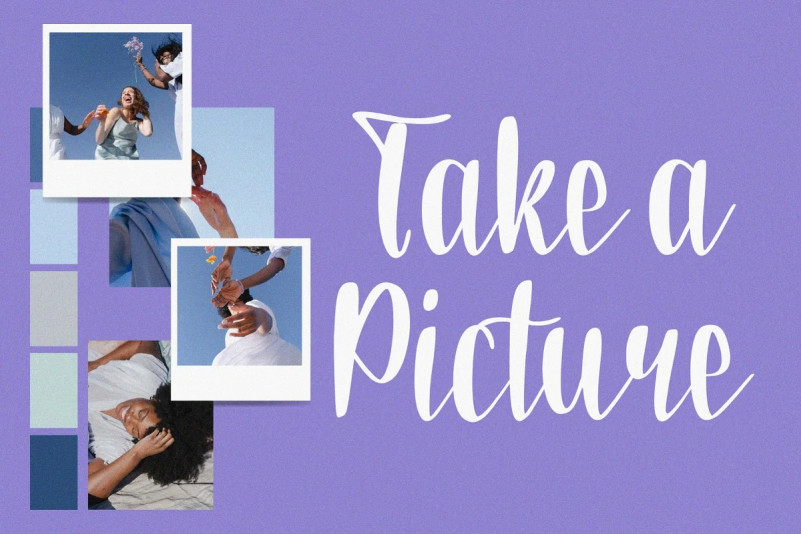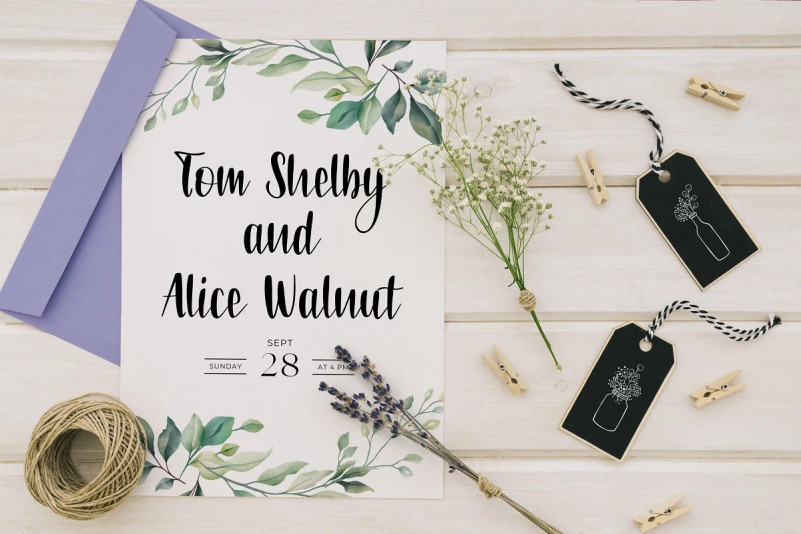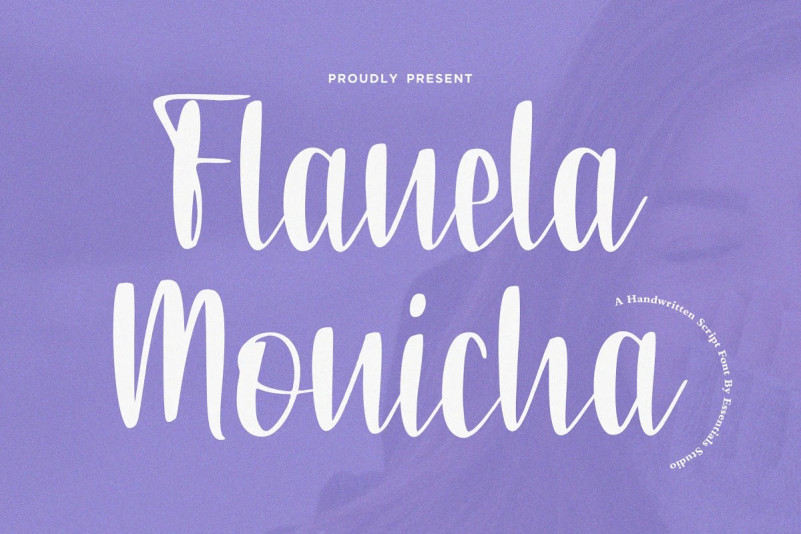
Flanela Monicha Font
Flanela Monicha is a Modern Script Font
Flanela Monicha is perfect for product packaging, branding project, megazine, social media, wedding, or just used to express words above the background.